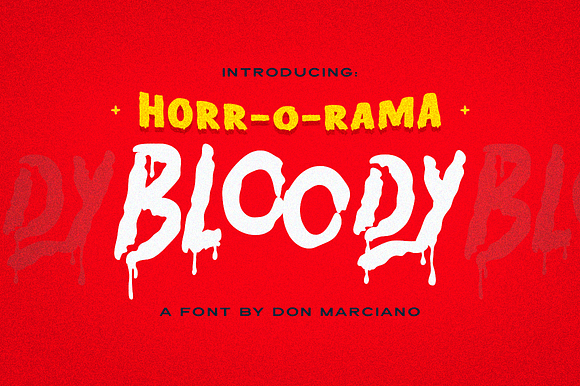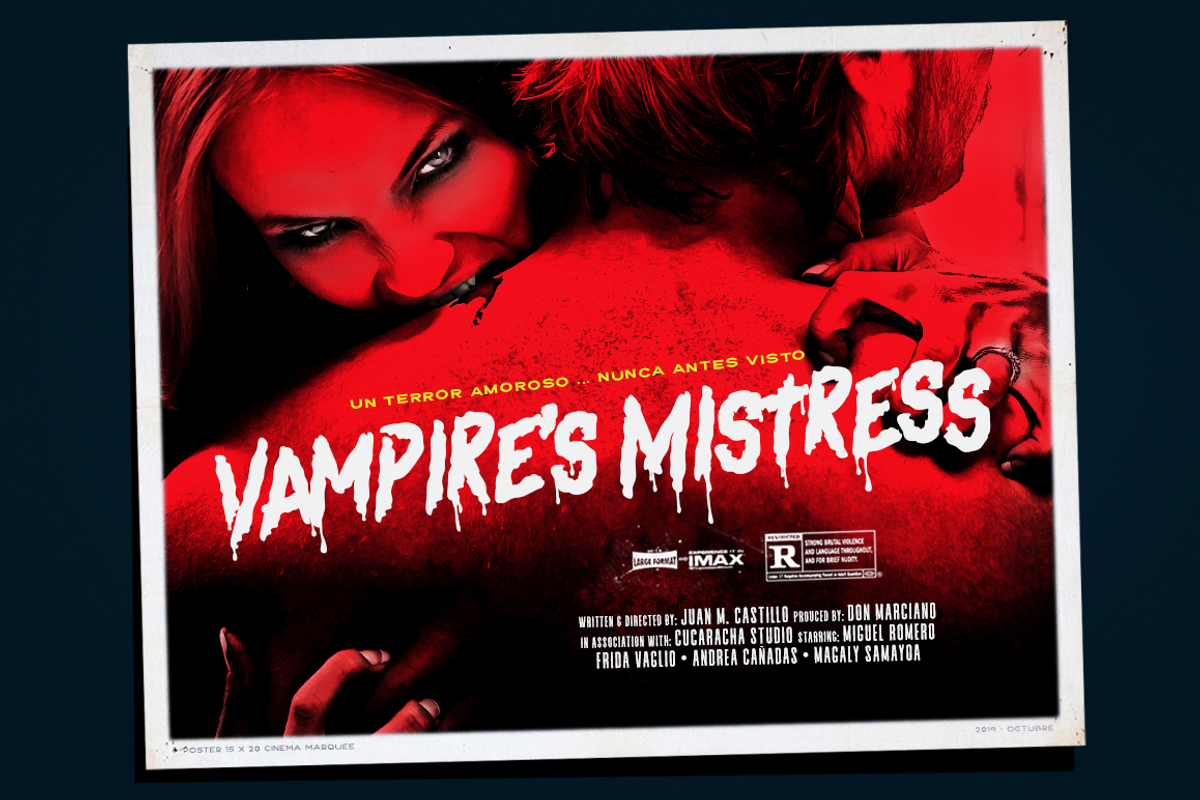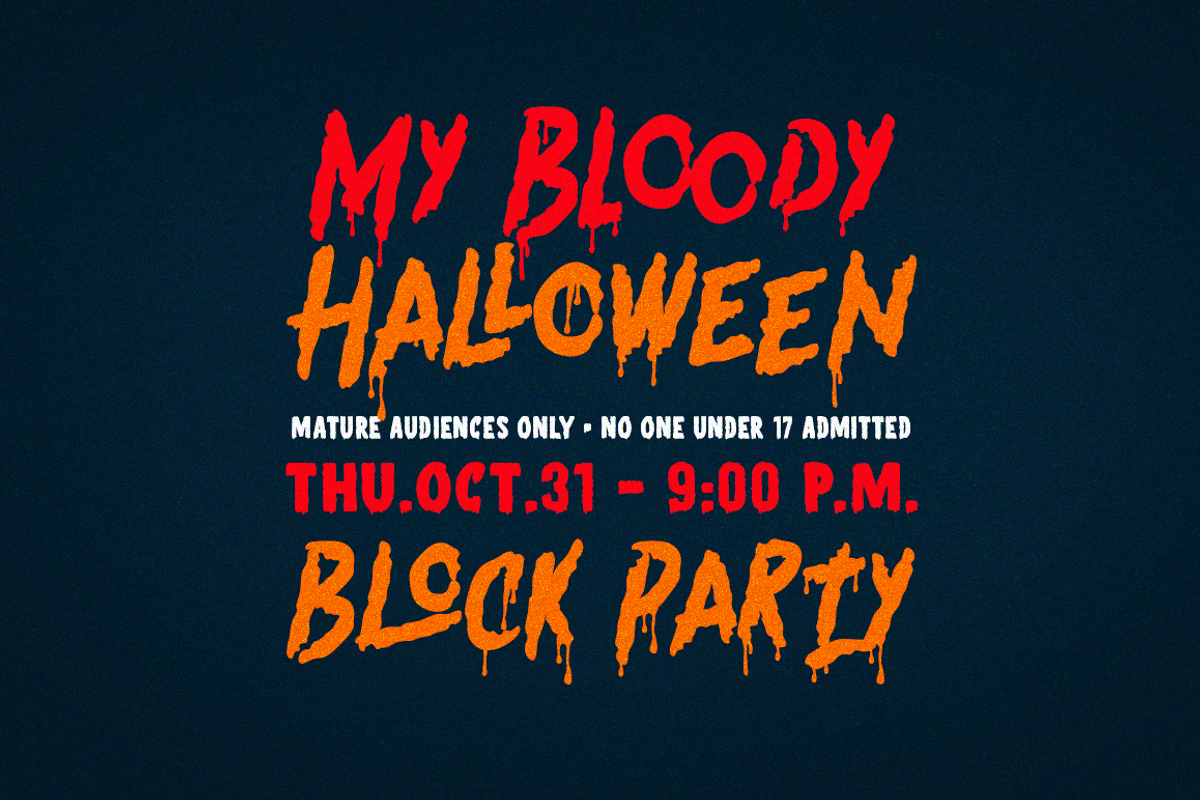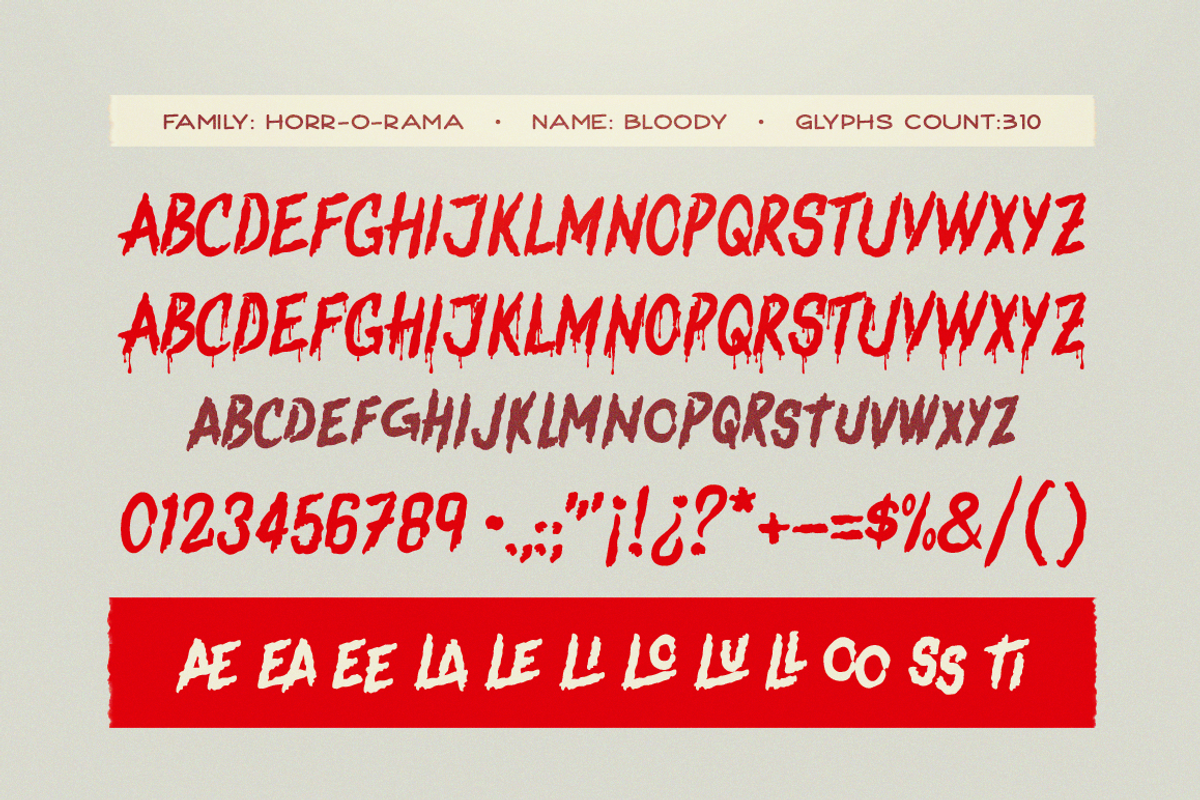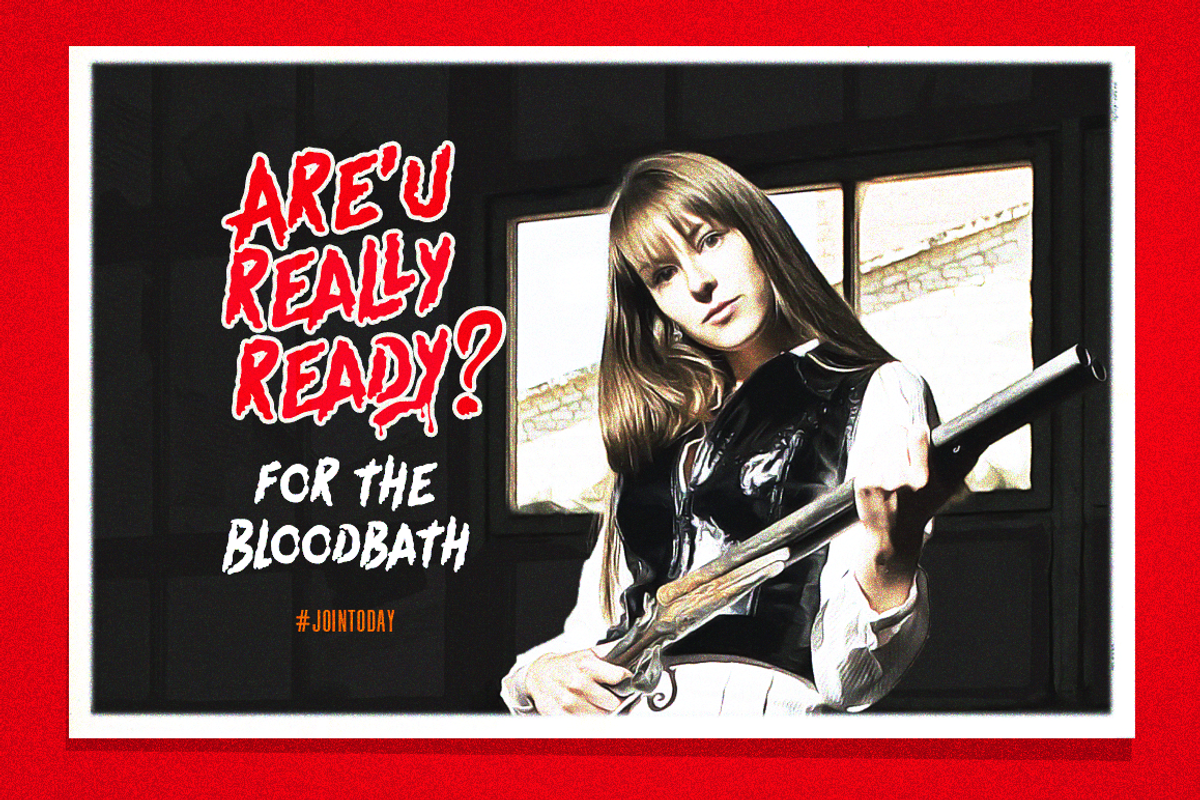
Bloody Scary Font
Bloody is a scary style font part of the family called HORR-O-RAMA, design for a series of Halloween posters inspired event by a local brewery, the goal was to reach a look and feel of mid-century design; with stress and rough lines, comes the bloodiest of all our season fonts.